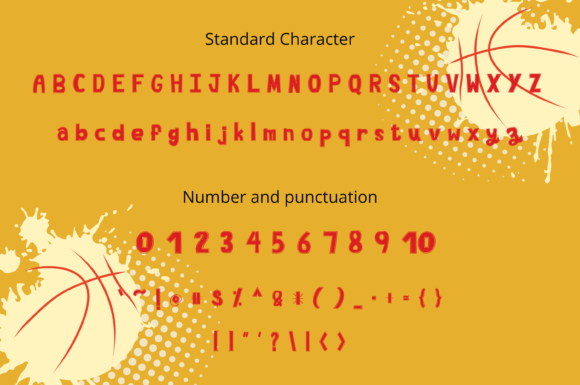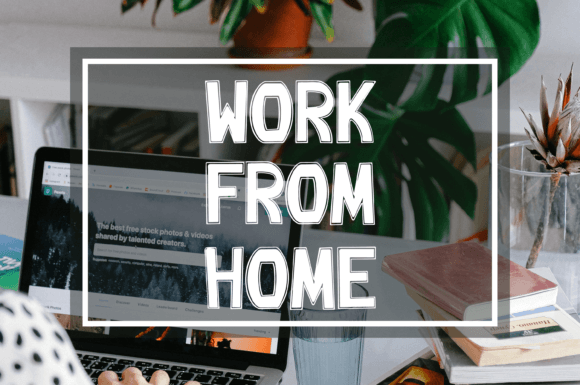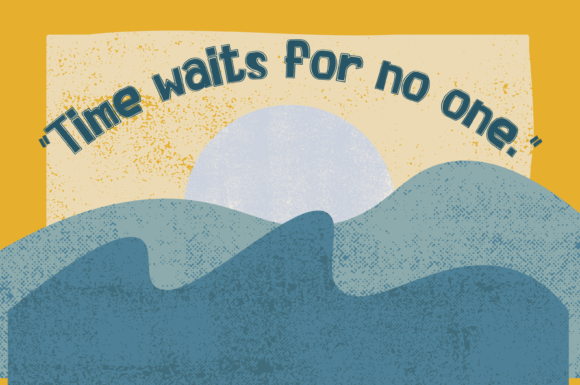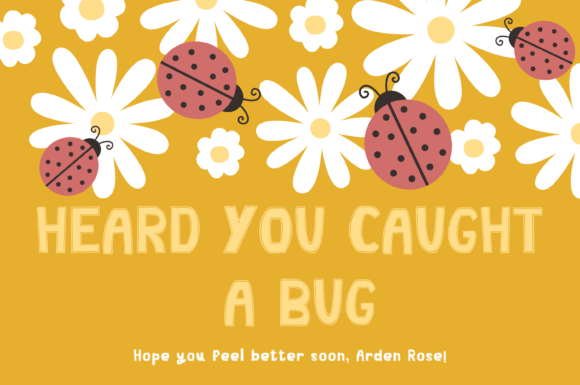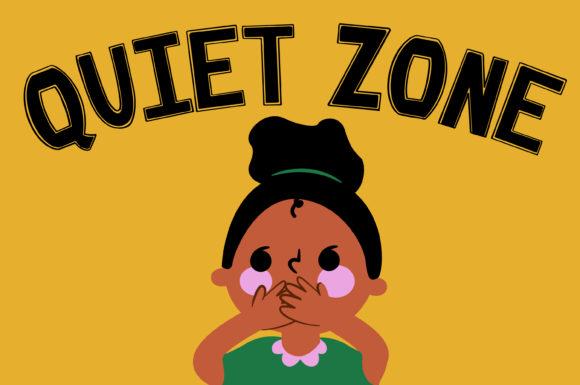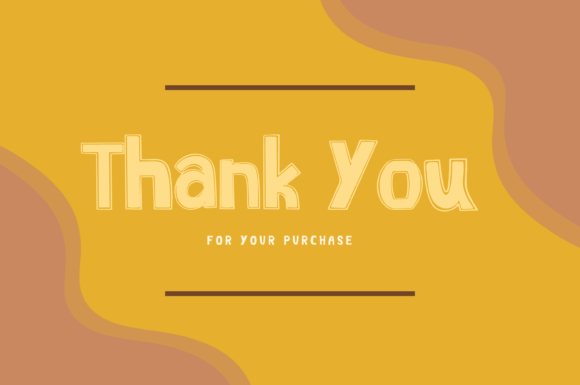
Introduction to Basketball Team Font
Have you ever been in the middle of a design project, staring at a blank canvas, and suddenly, an idea strikes? The colors, the layout, the font – everything falls into place, and you can envision the perfect visual representation of your creative vision. This is exactly what happens when you discover the perfect design resource, like the Basketball Team Font.
As a designer, you understand the importance of a high-quality font in elevating your project to the next level. The Basketball Team Font is a game-changer, offering a whimsical and clean display font that can be used in a wide range of creative projects, from digital designs to print materials. With its transparent background and clean design, this font is a versatile design resource that’s perfect for designers looking to add a touch of sophistication to their work.
Basketball Team Font: Key Features
- High-quality design resource ideal for creative projects, including sports team branding and merchandise.
- Unique, bold typography with transparent background, allowing for easy customization and versatility in design applications.
- Designed with high-resolution graphics (300 DPI) for crisp, clear text and logos, perfect for print and digital applications.
- Suitable for use in sports-themed designs, including basketball team branding, jerseys, and merchandise.
Honest Review: Basketball Team Font
I recently stumbled upon the Basketball Team Font and was excited to give it a try. As a designer, I’m always on the lookout for high-quality fonts that can elevate my creative projects. In this review, I’ll share my honest thoughts on what works well and what doesn’t.
- The font has a clean and modern design that’s perfect for sports-related projects, especially basketball.
- The high quality of the font makes it suitable for both digital and print designs.
- The font doesn’t come with a transparent background option, which might be a limitation for some designers.
- The font library is relatively small, so you might not find as many customization options as you’d like.
Overall, I think the Basketball Team Font is a great addition to any designer’s toolkit. While it has some limitations, its high quality and modern design make it a great choice for sports-related projects. If you’re looking for a free design resource, I’d definitely recommend giving it a try.
How to Use Basketball Team Font
The Basketball Team Font is a high-quality design resource ideal for creative projects, such as sports teams, event promotions, or merchandise. This font is available for free download and offers a transparent background, making it versatile for various applications.
- Experiment with different font sizes and styles to create a unique visual identity.
- Combine the Basketball Team Font with other design elements, such as graphics or images, to create a cohesive design.
- Use the transparent background to create a sense of depth and dimension in your designs.
- Sports team branding and marketing materials.
- Event promotions and posters.
- Merchandise, such as t-shirts or hats.
Alternatives to Basketball Team Font
Comparison to Basketball Team Font: Noto Sans has a more refined and polished appearance compared to Basketball Team Font, making it a better choice for high-end design projects.
Open Sans is a popular free download font that’s widely used in various design resources. It’s a great alternative to Basketball Team Font when you need a friendly and approachable font for your creative project.
Can I customize the Basketball Team Font to fit my brand’s unique style?
While the Basketball Team Font is a pre-designed font, you can customize it to fit your brand’s unique style by adjusting the font size, color, and layout. You can also use font editing software, such as FontForge or FontLab, to modify the font’s characters, spacing, and kerning. However, please note that making significant changes to the font may affect